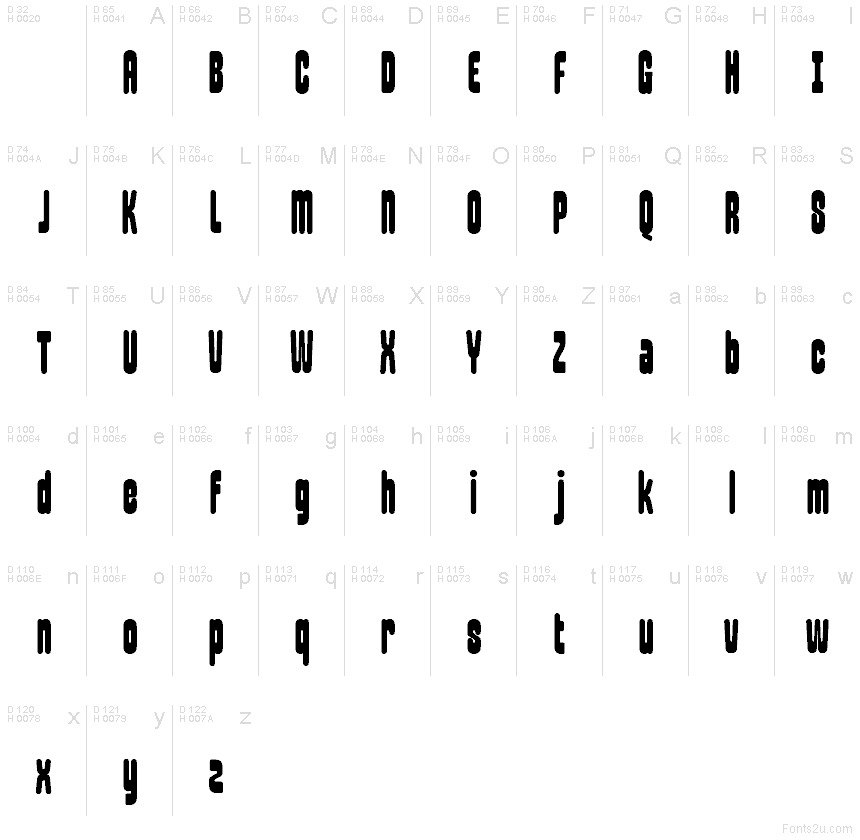
CS Gilman Regular Demo
CS Gilman font by Craft Supply Co. beautifully combines modern design with a retro flair, embodying geometric shapes with clean lines. This bold, condensed display font channels an Art Deco influence with its strong, eye-catching presence and distinctive rounded finish.